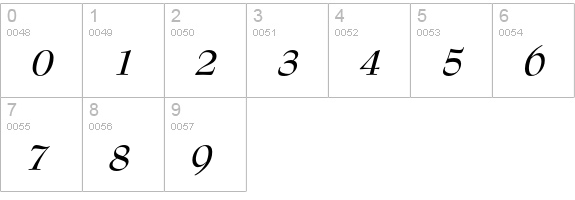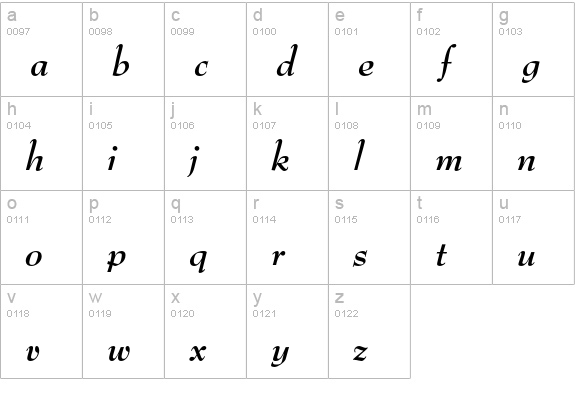
Bernhard Modern Bold Italic Font Details
Bernhard Modern Bold Italic is a strong, high-contrast, italic variant in the Bernhard typeface family \xE2\x80\x94 well suited to headlines, attention-grabbing titles, and strong calls-to-action.
Bernhard Modern Bold Italic is a striking and elegant typeface that exudes sophistication and style. Its bold, italicized design adds a touch of drama and flair to any project, making it a versatile choice for both print and digital media. The sleek lines and distinctive letterforms of Bernhard Modern Bold Italic make it a standout choice for headlines, logos, and branding materials. Best of all, Bernhard Modern Bold Italic is available for free download at FontsMarket.com. This means you can easily access this stunning font to elevate your designs without any cost involved. Whether you're a professional designer looking to add a touch of class to your projects or a hobbyist seeking to enhance your creative work, Bernhard Modern Bold Italic is the perfect choice. Download it today and let your creativity shine with this beautiful and impactful typeface.